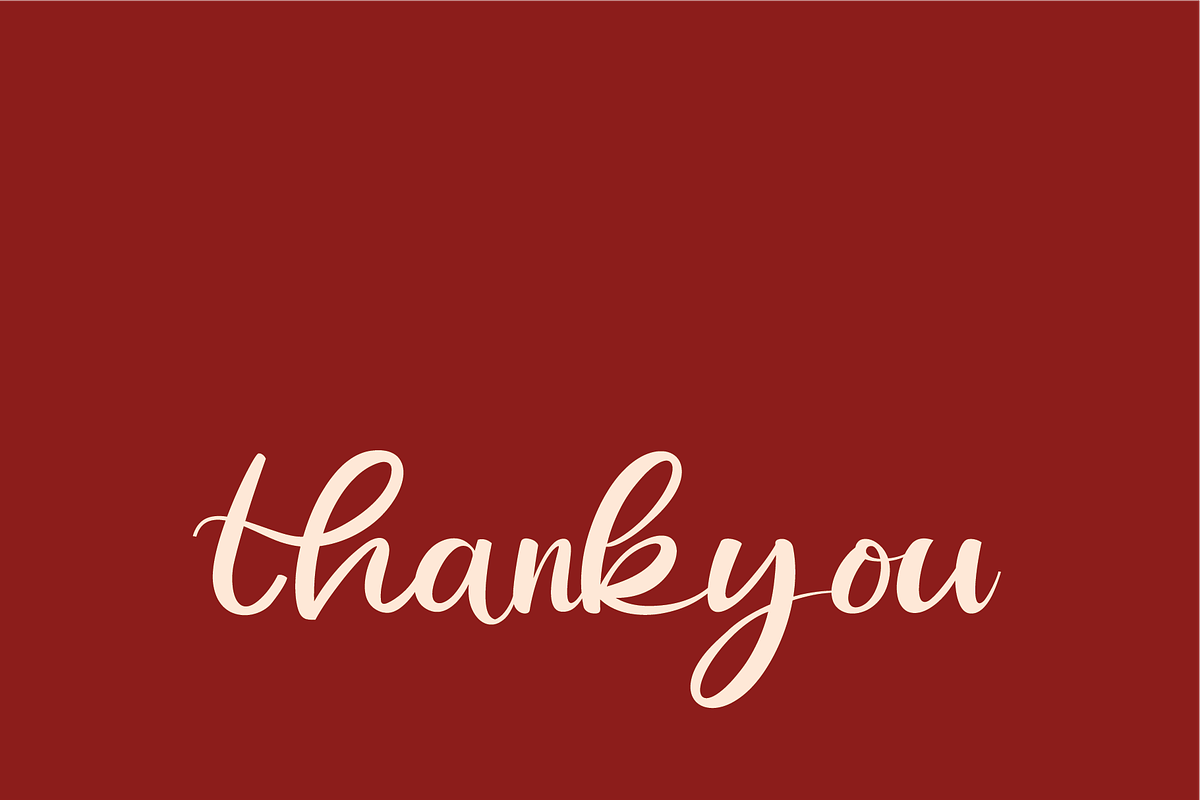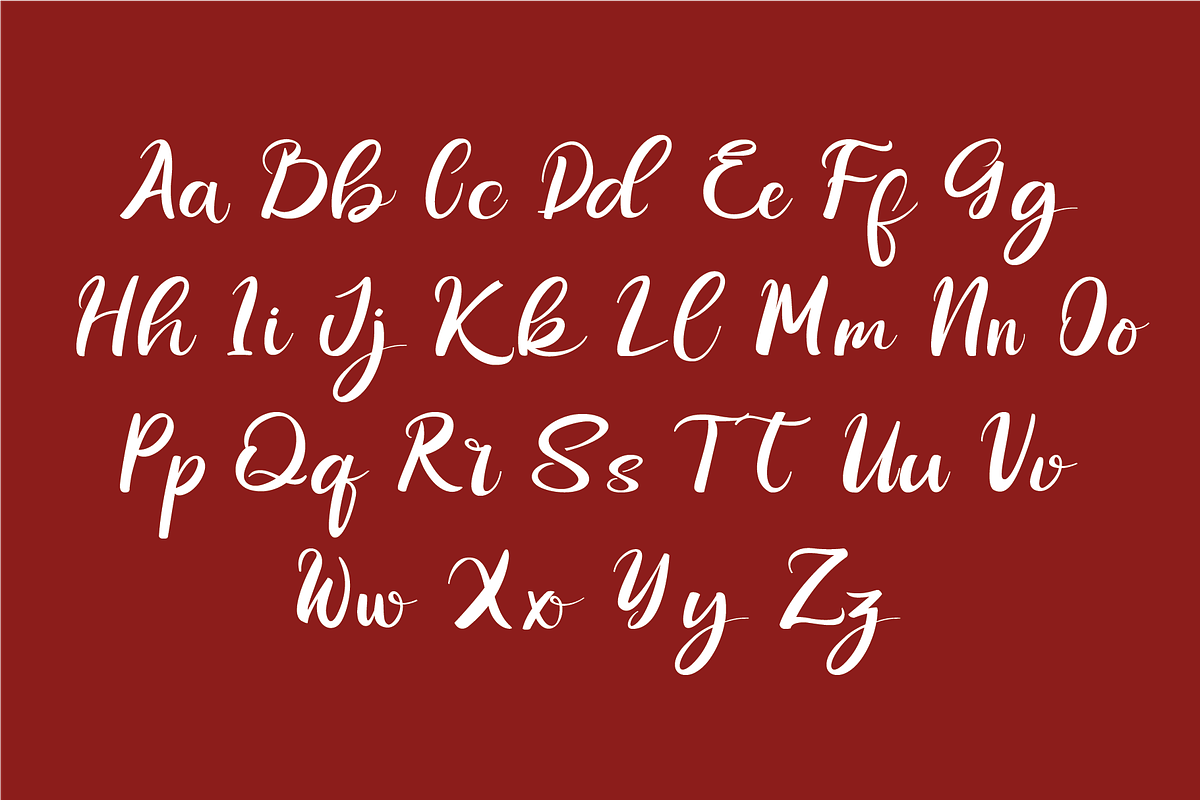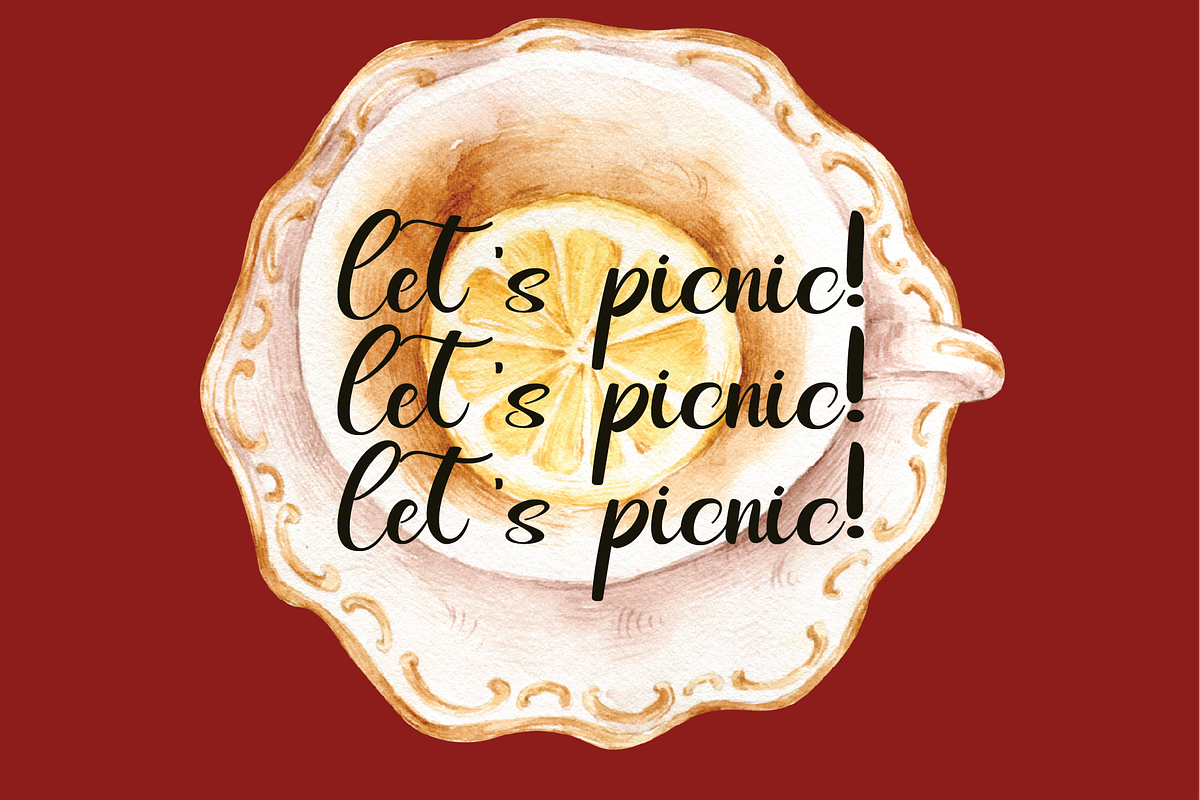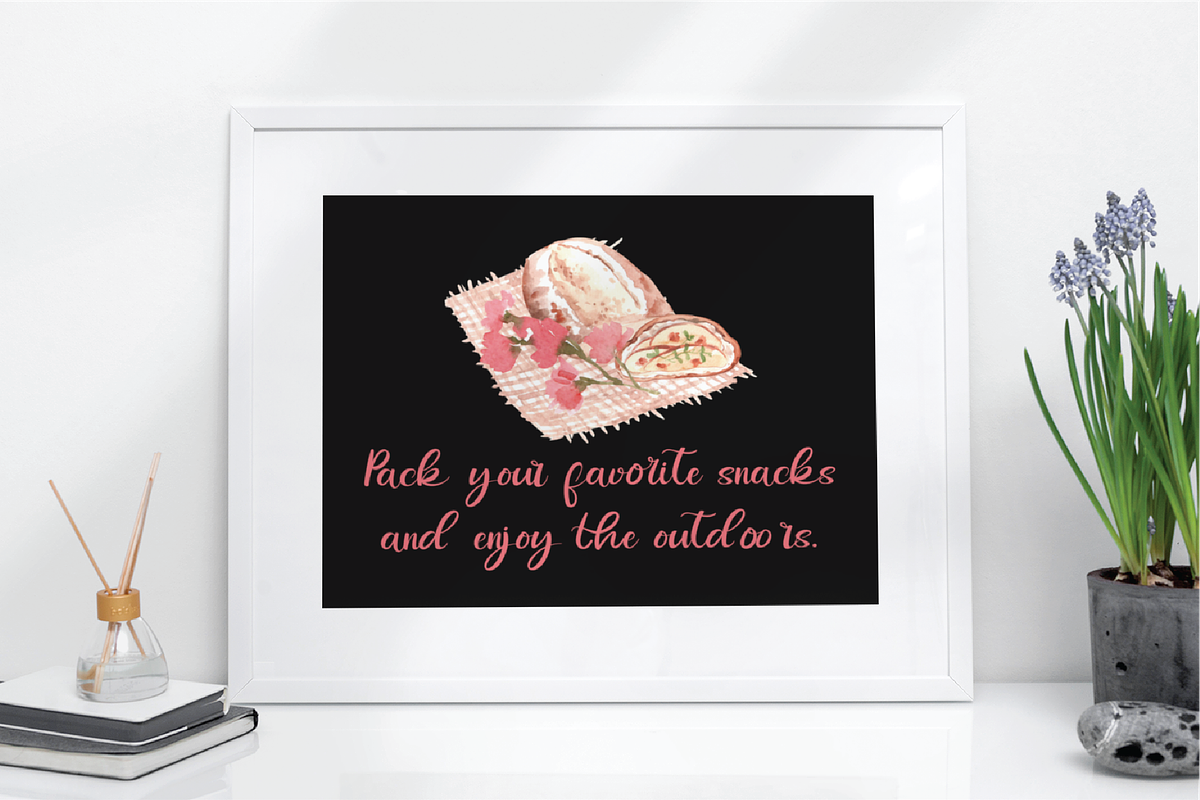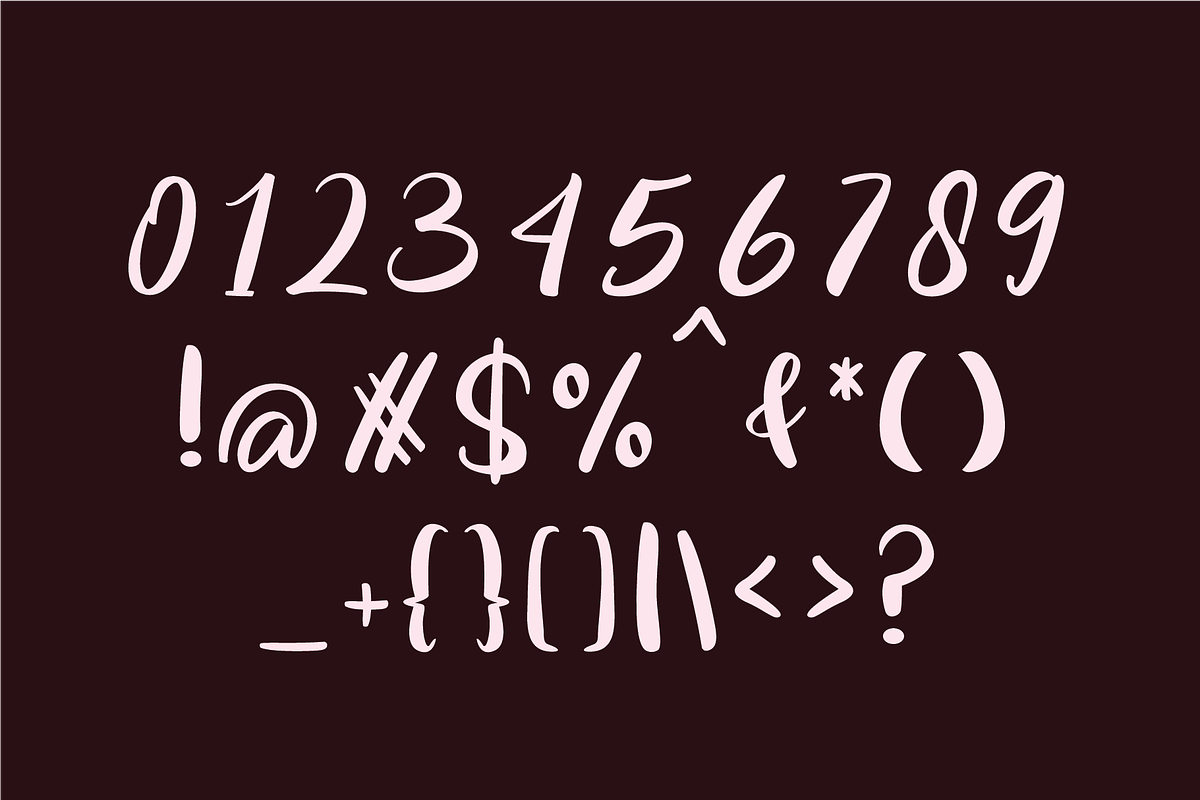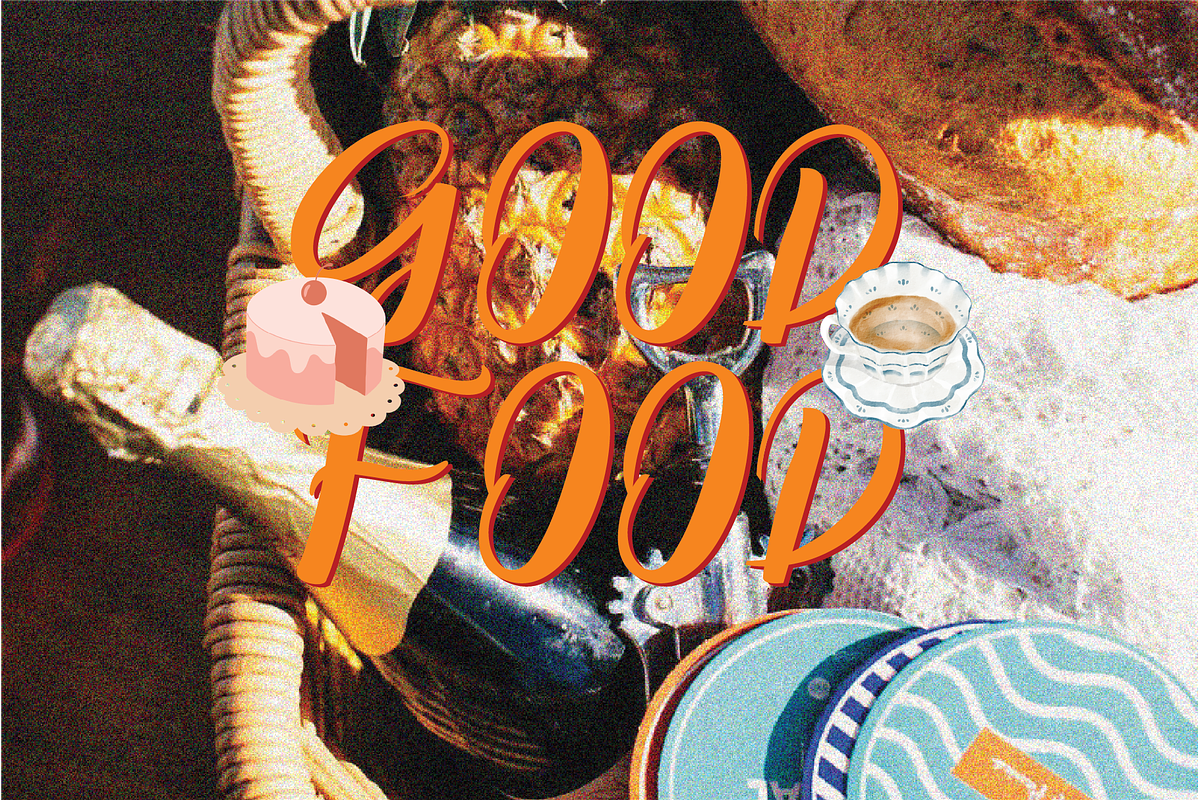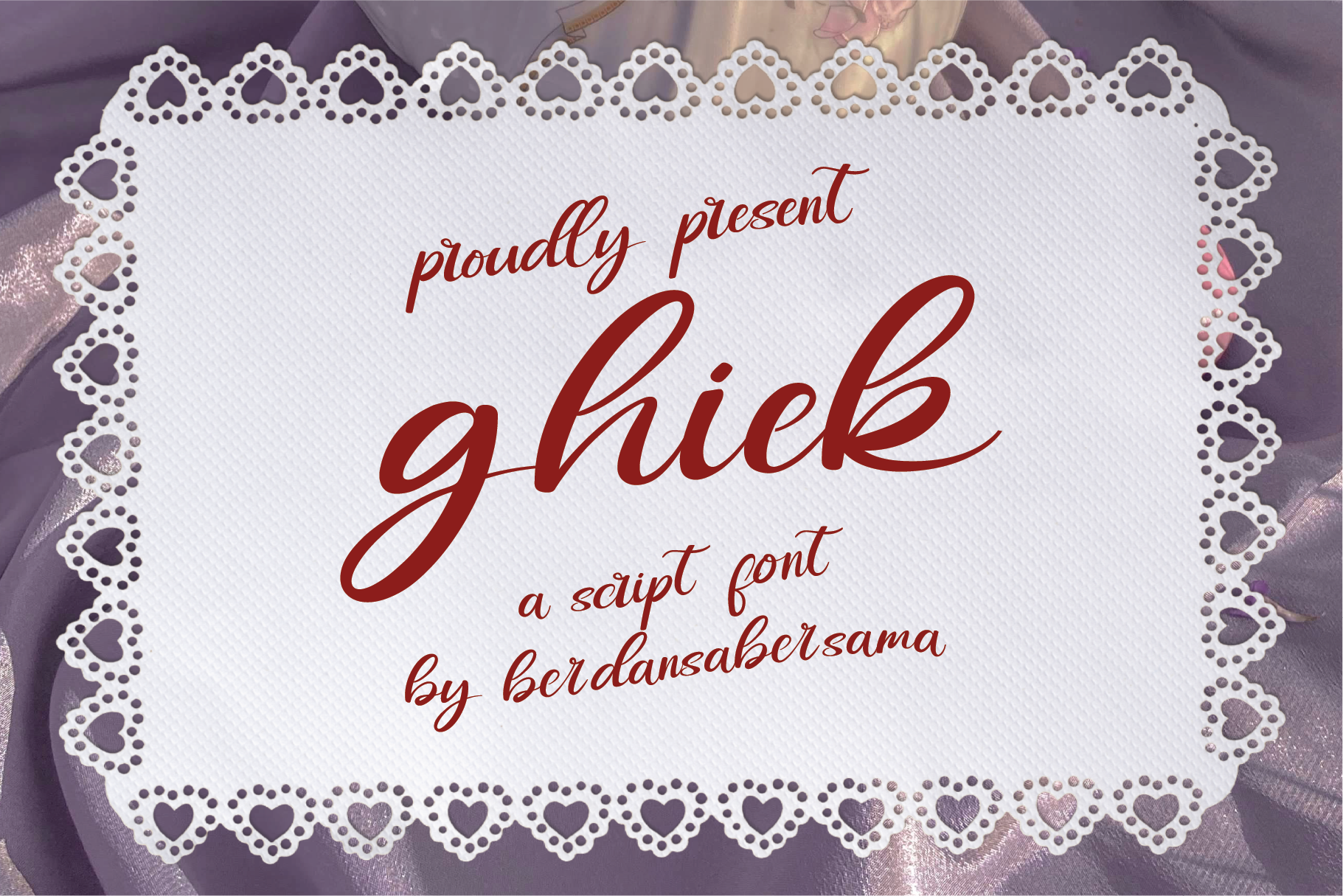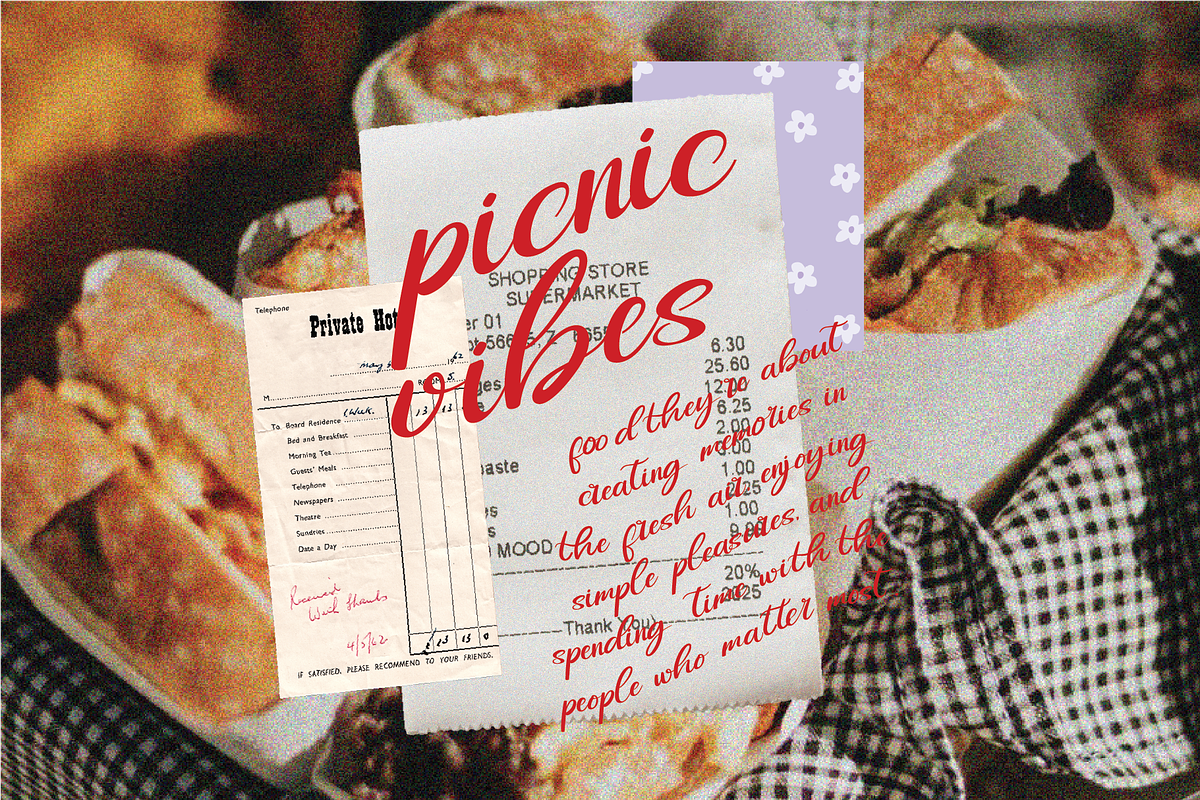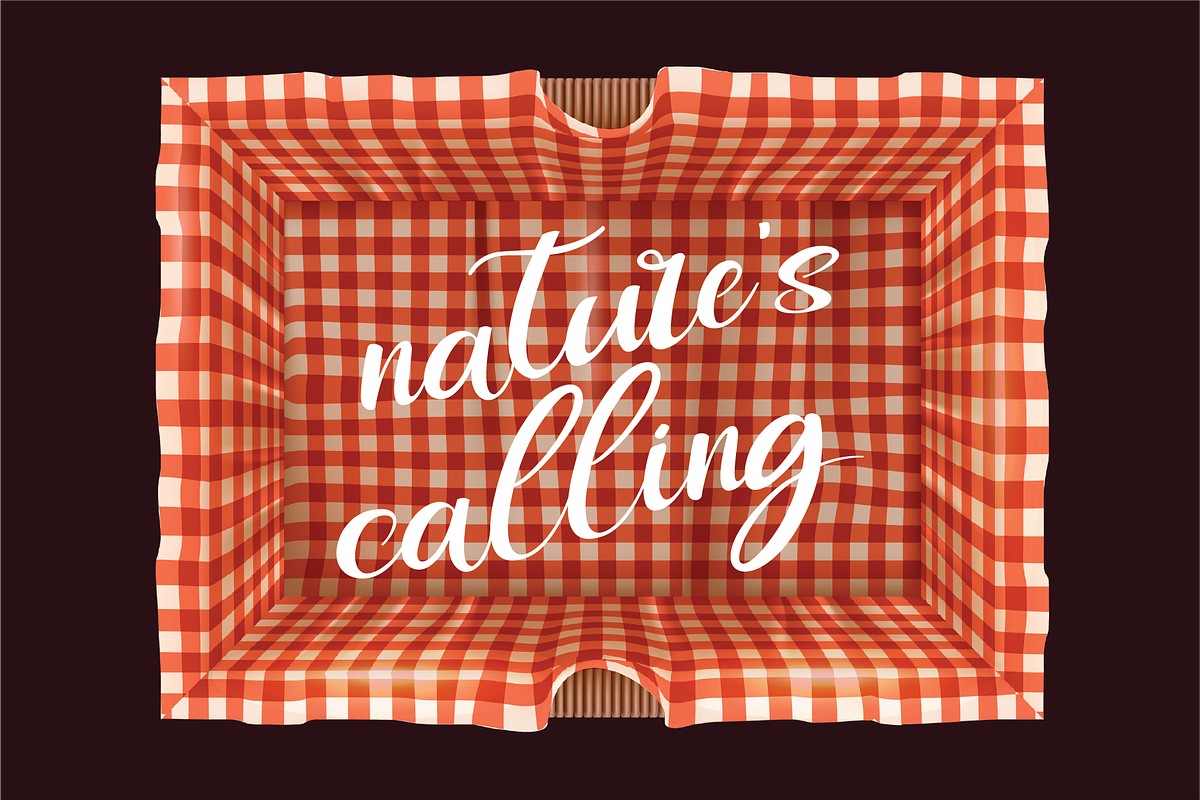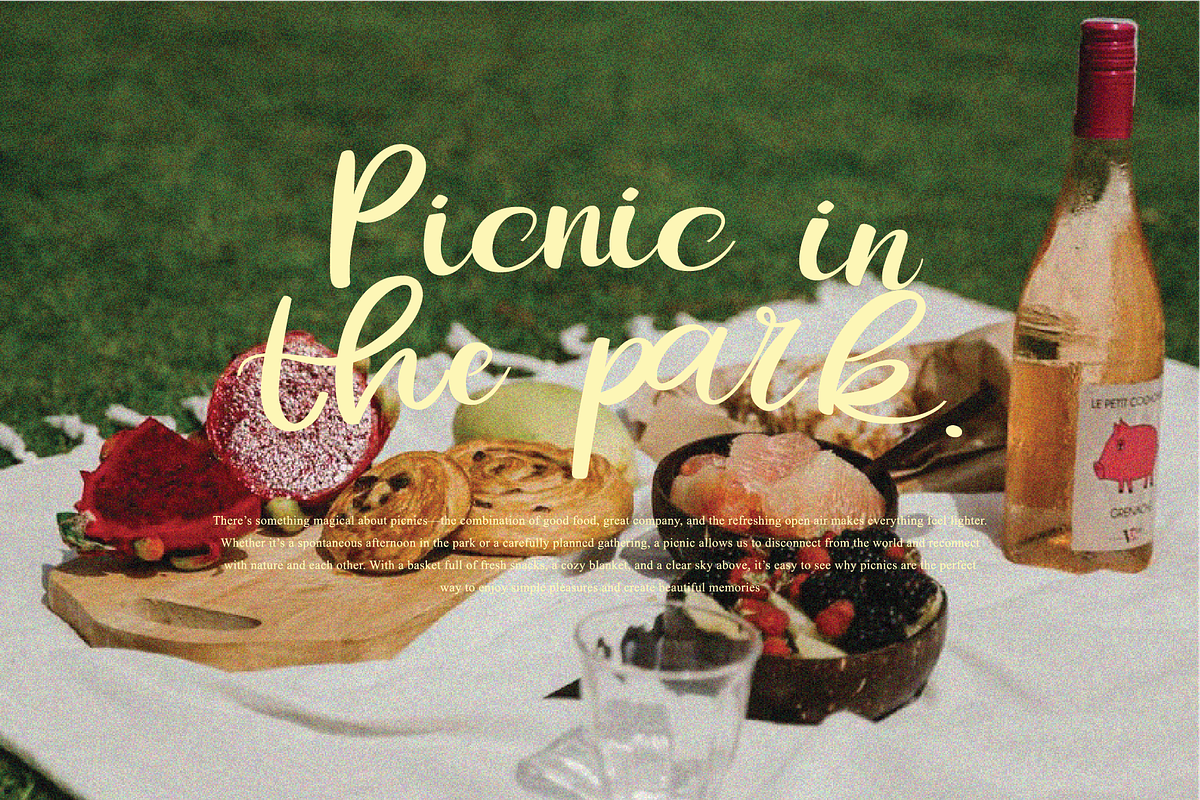
Ghiek a Script Font
Ghiek is an elegant handwritten script font with a graceful flow and refined curves. Its smooth strokes and natural rhythm give it a warm, romantic feel—perfect for designs that want to feel delicate, personal, and expressive.
- Numbers, marks and symbols